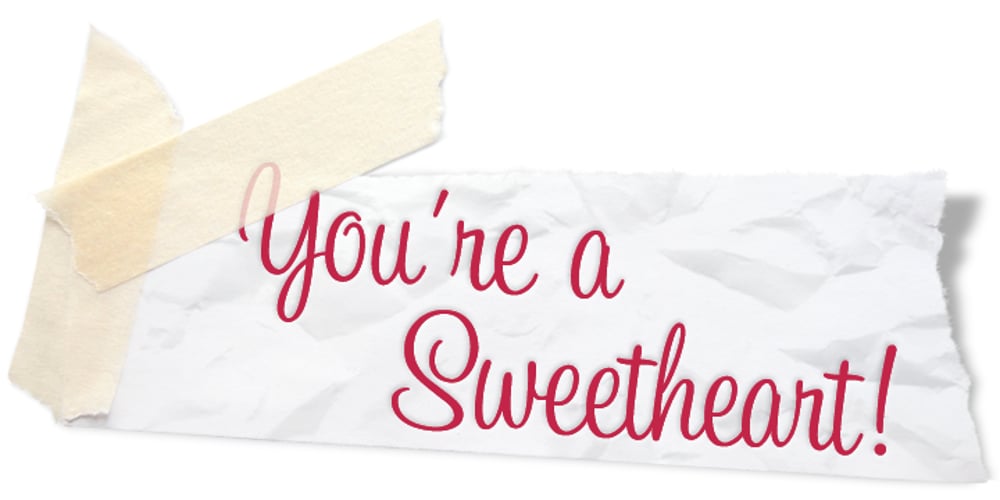
Sweetheart Script Font Family was designed by Ronna Penner and published by Typadelic. Sweetheart Script contains 1 styles and family package options. Sweetheart Script revives handwriting from the mid 20th century with a lot of bounce and personality. Use it in casual settings where you need a bit of flair!